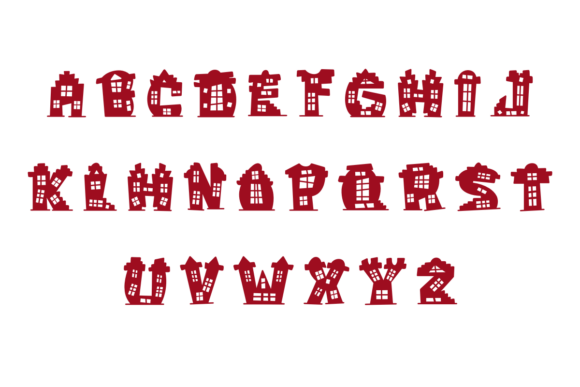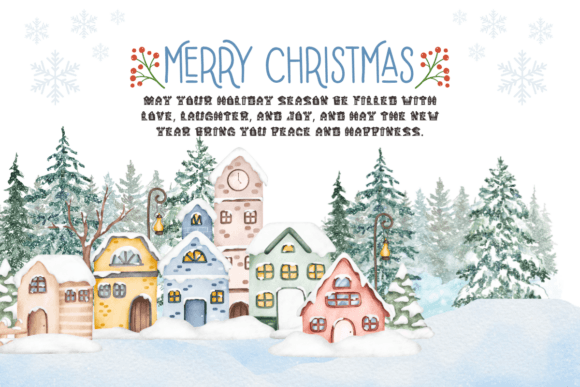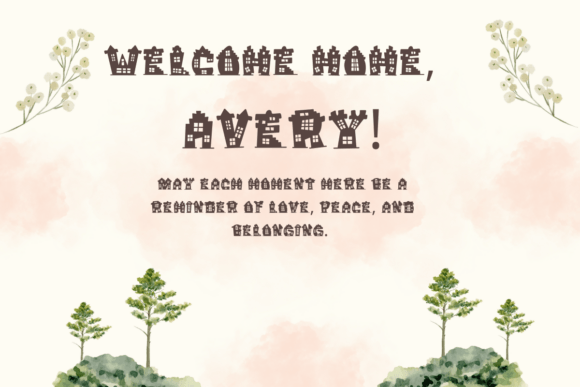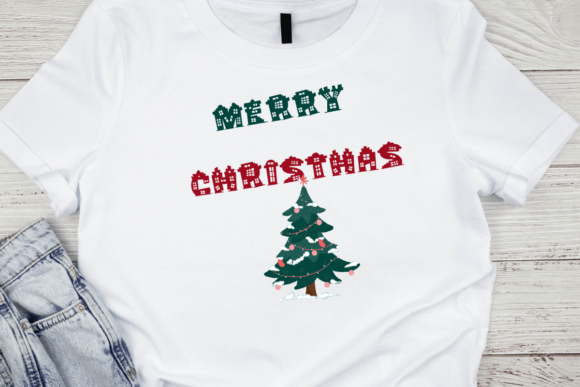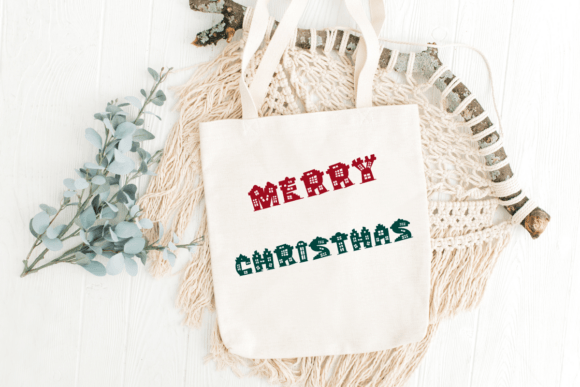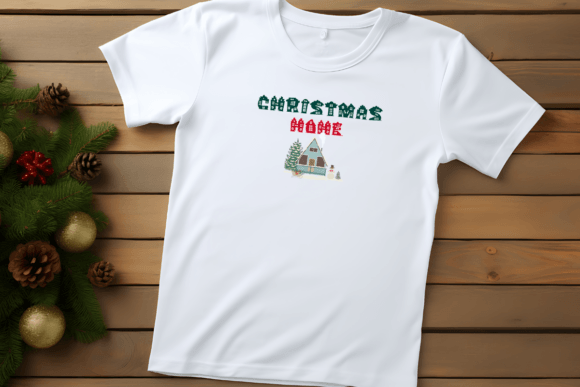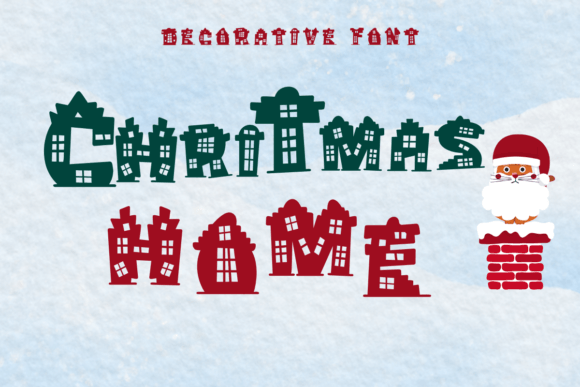
Introducing Christmas Home Font: The Perfect Decorative Font for Your Holiday Designs
Are you looking for a festive and fun font to add some holiday cheer to your designs? Look no further than Christmas Home Font! This decorative font is perfect for taking notes, writing a diary, or making greeting cards, and can also be used for a wide range of other designs, such as banners, content, mugs, cards, shirts, stationery, social media posts, and more!
What is Christmas Home Font?
Christmas Home Font is a unique and eye-catching decorative font that is sure to add a touch of holiday magic to any design. Its playful and festive style makes it perfect for creating holiday-themed designs, from Christmas cards and gift tags to social media posts and blog content.
Uses for Christmas Home Font
Christmas Home Font is a versatile font that can be used for a wide range of designs, including:
- Holiday cards and gift tags: Add a personal touch to your holiday cards and gift tags with this festive font.
- Social media posts: Make your holiday social media posts stand out with this fun and playful font.
- Blog content: Add some holiday cheer to your blog content with this decorative font.
- Banners and signs: Create eye-catching banners and signs with this festive font.
- Mugs and water bottles: Add a personal touch to your holiday gifts with this fun font.
- Shirts and stationery: Create unique and festive holiday shirts and stationery with this decorative font.
Why Choose Christmas Home Font?
There are many reasons to choose Christmas Home Font for your holiday designs. Here are just a few:
- Unique and eye-catching: This font is sure to stand out and add a touch of holiday magic to any design.
- Versatile: Christmas Home Font can be used for a wide range of designs, from holiday cards to social media posts.
- Fun and festive: This font is sure to add a touch of holiday cheer to any design.
Tips for Using Christmas Home Font
Here are a few tips for using Christmas Home Font in your designs:
- Use it sparingly: This font is perfect for adding a touch of holiday cheer to your designs, but can be overwhelming if overused. Use it sparingly to add emphasis and interest.
- Pair it with other fonts: Christmas Home Font pairs well with a variety of other fonts. Try pairing it with a simple sans-serif font for a fun and playful look.
- Experiment with colors: This font looks great in a variety of colors, from bright and bold to soft and pastel. Experiment with different colors to find the perfect look for your design.
Key Features of Christmas Home Font
- Decorative font: Christmas Home Font is a unique and eye-catching decorative font.
- Festive style: This font has a playful and festive style that’s perfect for the holiday season.
- Versatile: Christmas Home Font can be used for a wide range of designs, from holiday cards to social media posts.
- What is Christmas Home Font?
- Christmas Home Font is a decorative font that is perfect for adding a touch of holiday cheer to your designs.
- What can I use Christmas Home Font for?
- Christmas Home Font can be used for a wide range of designs, including holiday cards, social media posts, blog content, banners, and more.